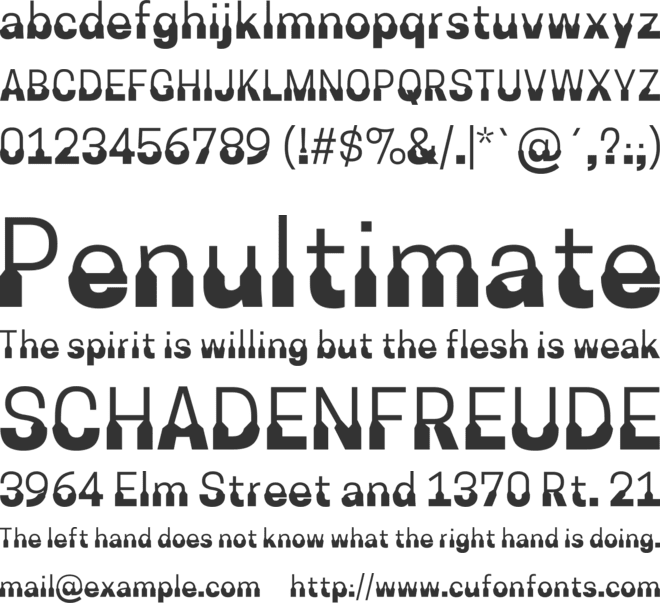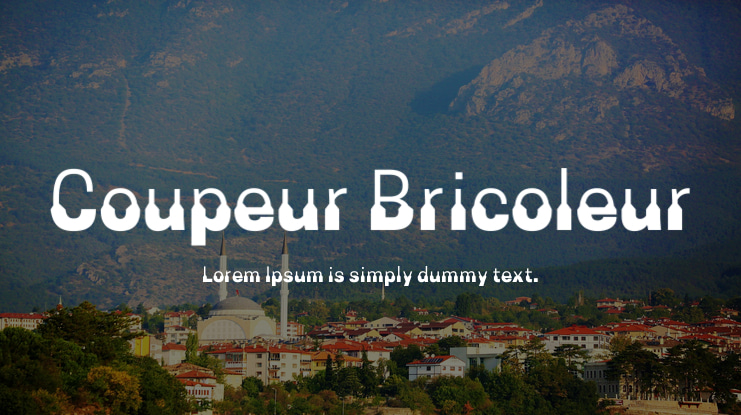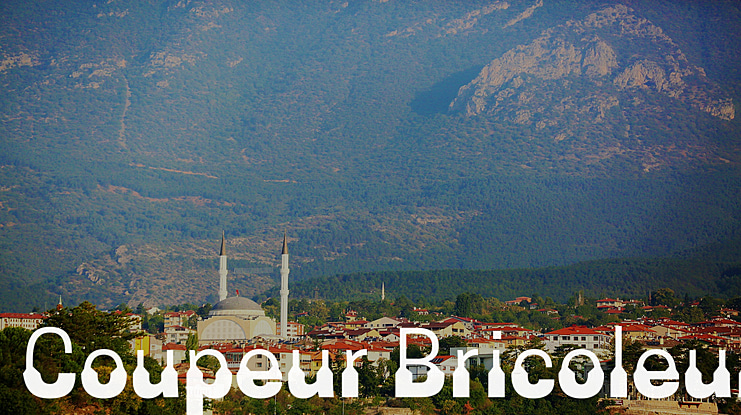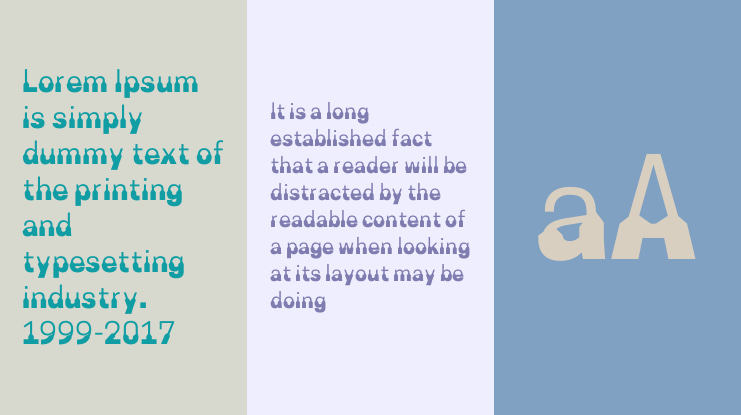
Coupeur Bricoleur Font Family
Bricoleur is a typographic system combining two weights of the Cooper Hewitt font family. By cutting the letters on the half, it became a kind of multi-weight font. It was designed during a workshop of Velvetyne Type foundry, "Font Fonk Fork". I named this system « Bricoleur » , french word for « handyman », because the graphic designer using the font have to fix the system himself to make it legible. After 3 years hidden in my computer, I decided to release a more user-friendly version: the cut versions were superimposed in a single file. 2016-2019.